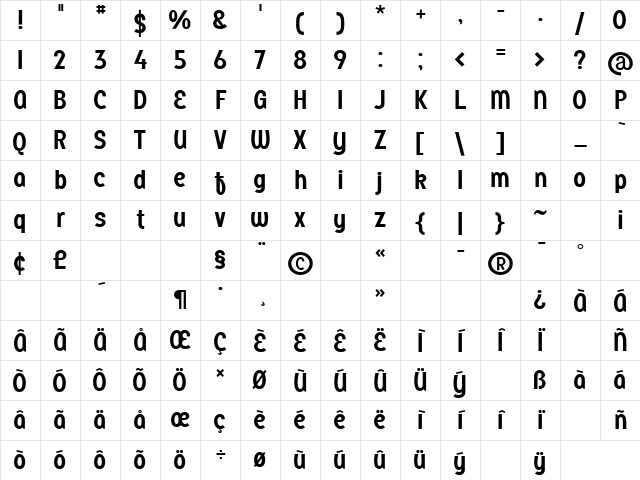
SisterMedium Regular
Foundry: Gareth Hague
Design Context for SisterMedium
SisterMedium is a composed and adaptable typeface that performs quietly and consistently across a wide range of design contexts.
Who designed the SisterMedium Regular font?